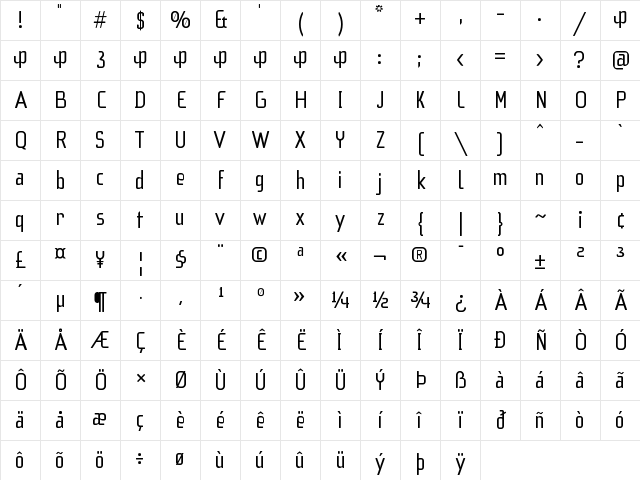
f3 Secuencia round ffp Regular
Foundry: deFharo
Designer: deFharo
Design Context for f3 Secuencia round ffp
f3 Secuencia round ffp softens its letterforms with rounded terminals, giving it an approachable, friendly quality that works well in consumer-facing and digital contexts.
Font Pairing: Pairs well with a rounded or humanist sans for body copy, maintaining the friendly tone without relying on f3 Secuencia round ffp to carry extended reading.
Pro Tip: Use f3 Secuencia round ffp for UI elements, app interfaces, and anywhere a friendly, approachable tone needs to be maintained without sacrificing clarity.